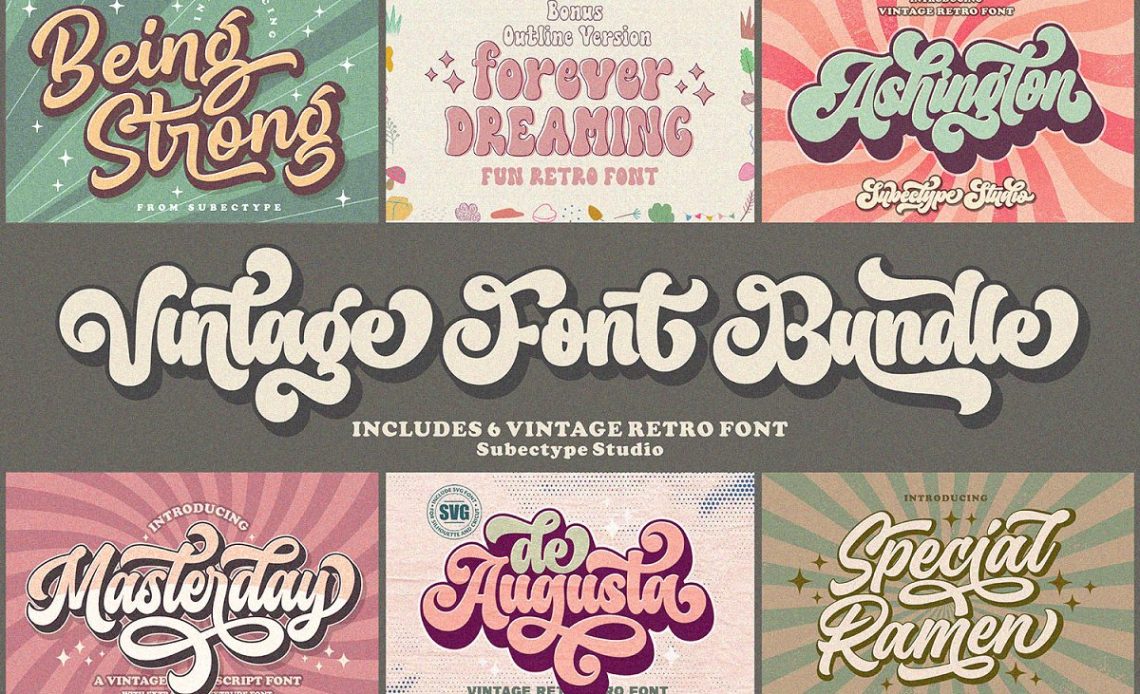
Attention all designers and creatives! Have you been searching for the perfect font to bring your designs to life? Look no further than our Vintage Retro Font Bundle! Created by the talented Muhammad Nur, this bundle contains six high-quality retro fonts, each with a ton of alternate letters to ensure your designs are truly unique.
But the Vintage Retro Font Bundle isn't just visually stunning - it also includes multilingual support, meaning you can reach a global audience with your branding. Our fonts are perfect for logos, invitation cards, apparel designs, headlines, business cards, inspirational quotes, t-shirts, posters, wedding designs, packaging, and so much more.